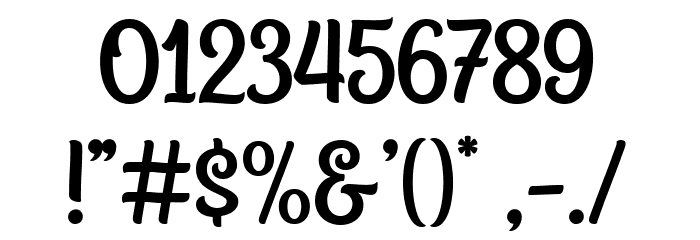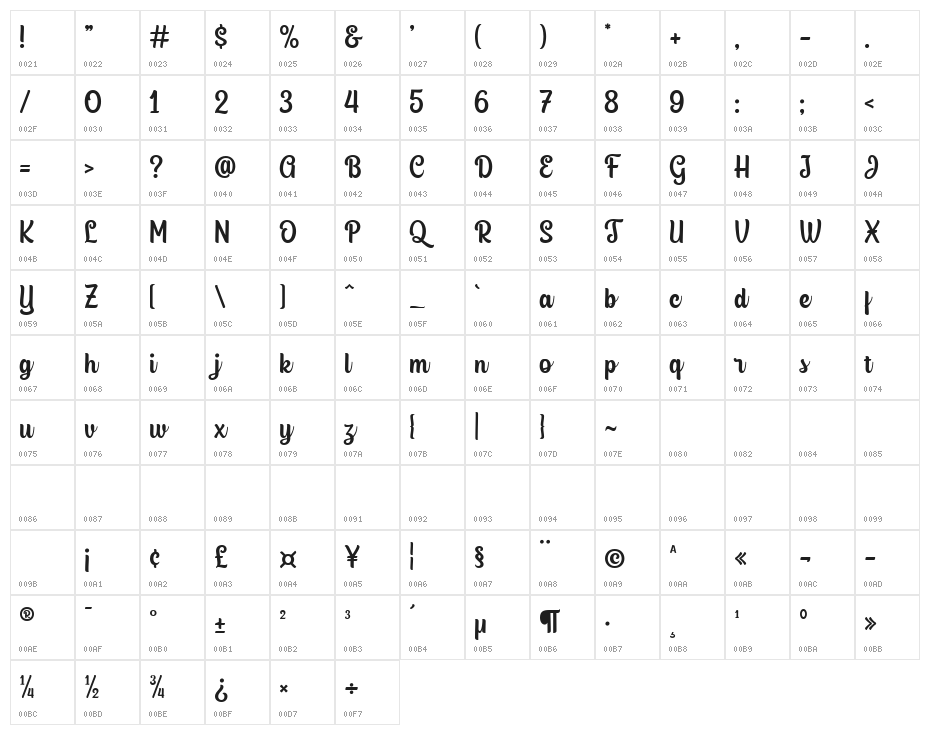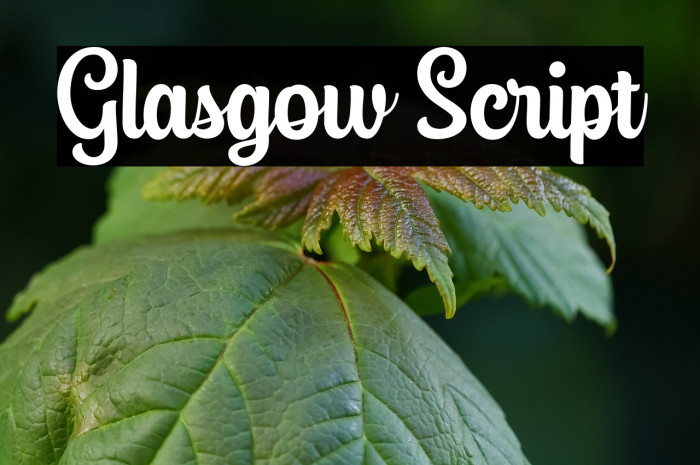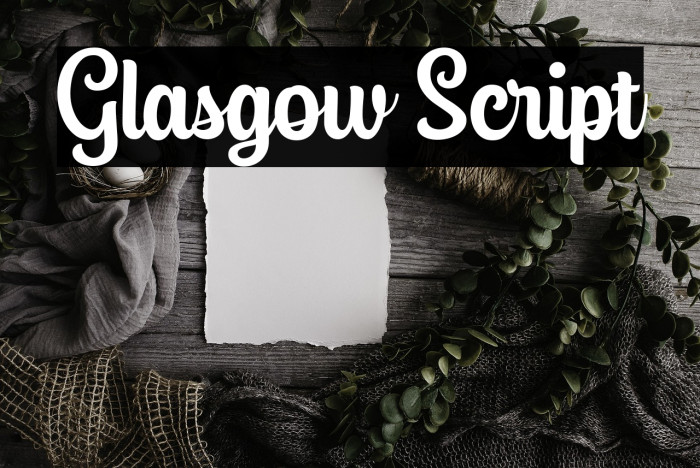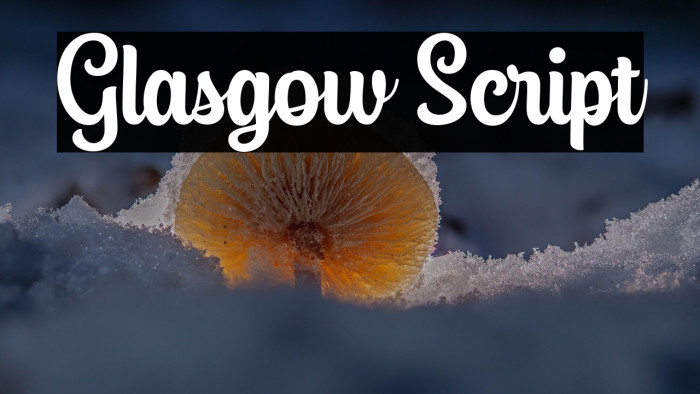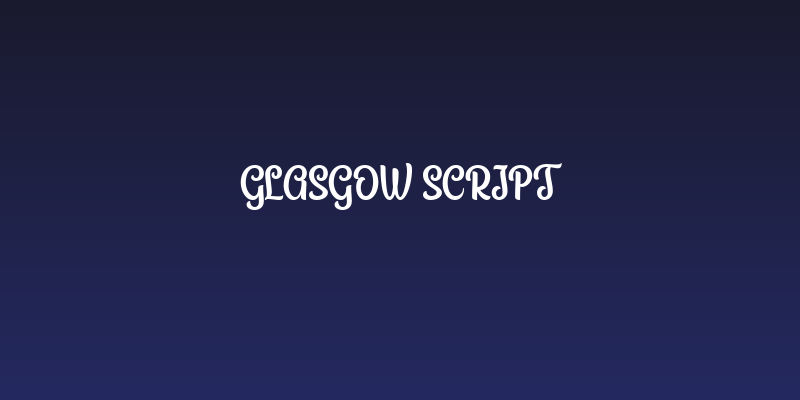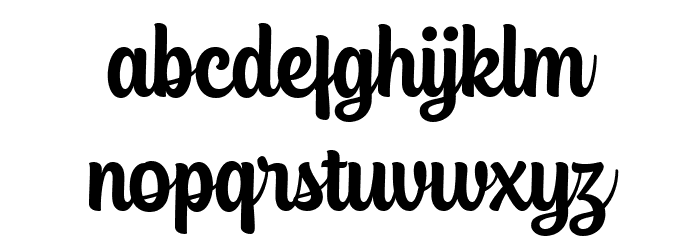
Glasgow Script Font
Glasgow Script Description
This font features a lively and flowing script style with a playful and casual appearance. The uppercase letters are bold and rounded, with a slight slant that adds to the dynamic feel. The lowercase letters maintain a consistent flow, connecting smoothly in a cursive manner. Numbers and special characters are designed to match the overall aesthetic, ensuring a cohesive look. The strokes are thick and consistent, providing a strong presence on the page. This font is ideal for projects that require a personal touch, such as invitations, greeting cards, or branding materials that aim to convey warmth and friendliness.
| Proposed Projects | Ideal for invitations, greeting cards, branding materials, and any project requiring a personal touch. |